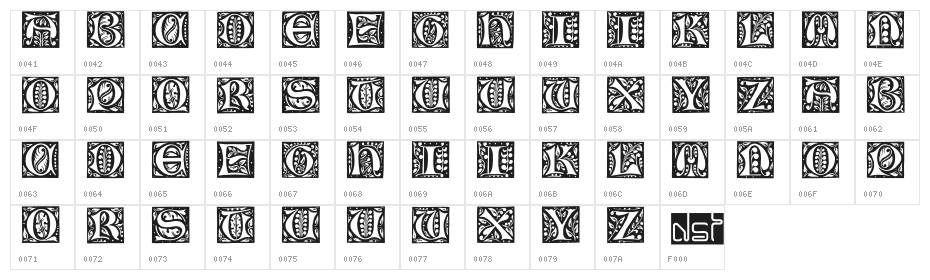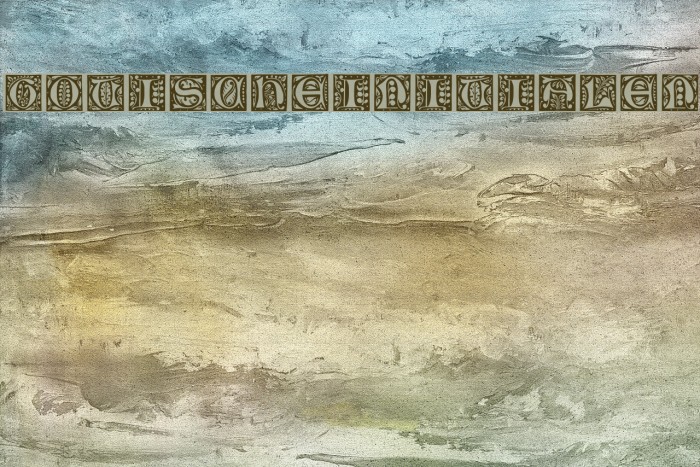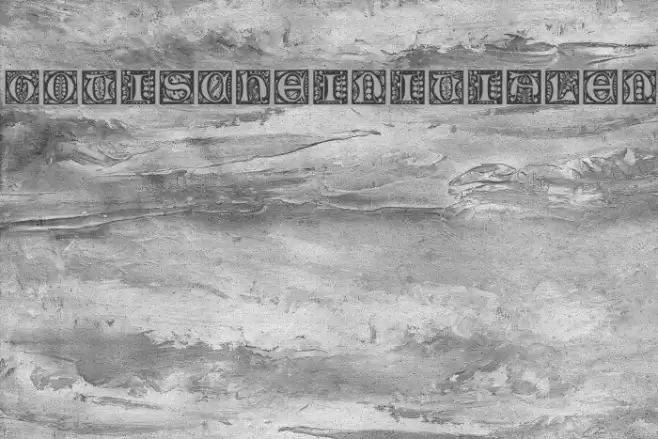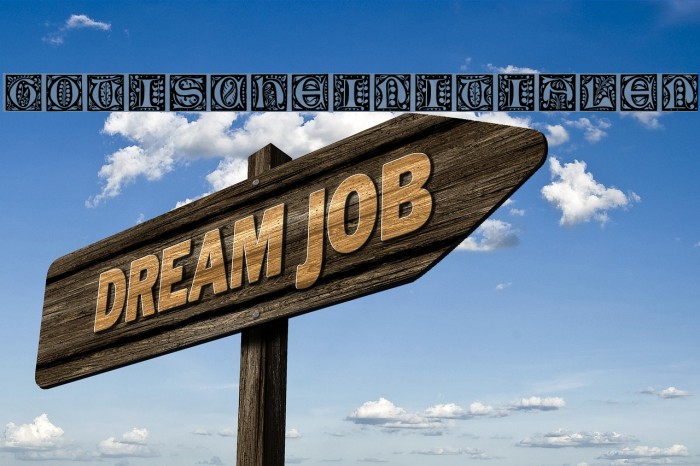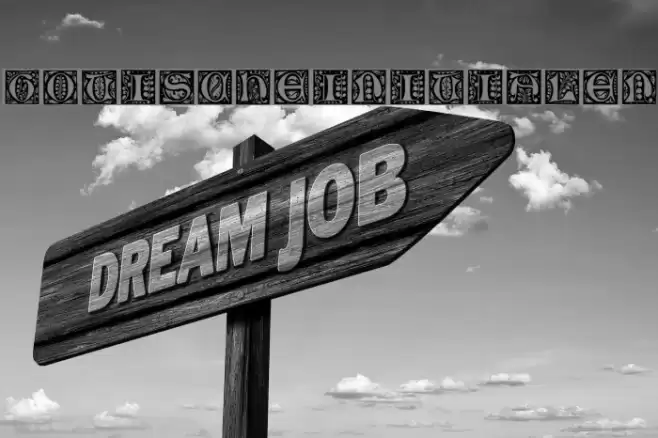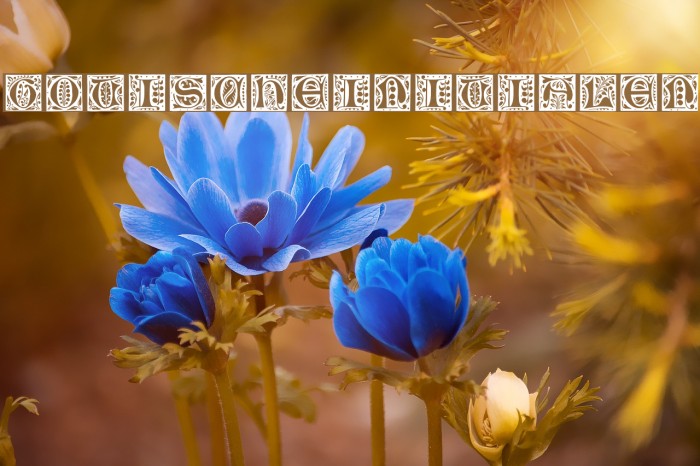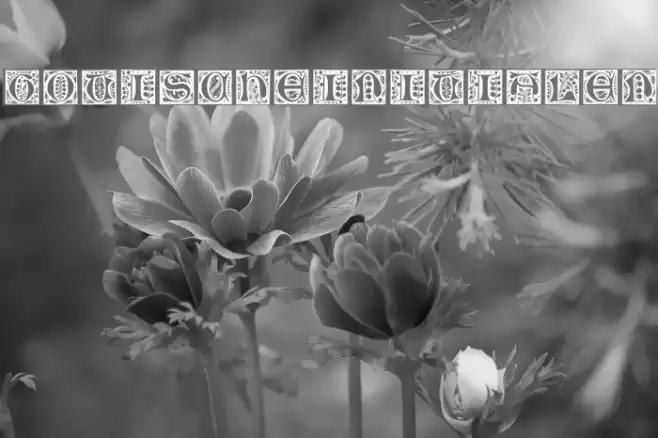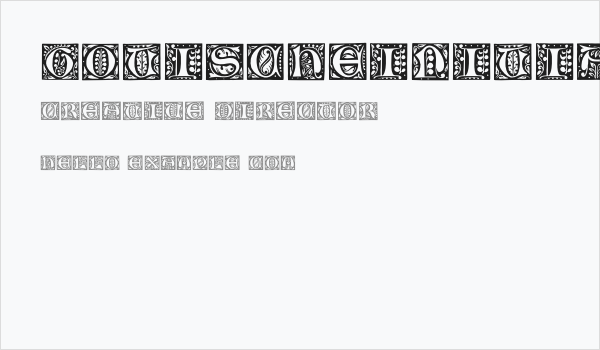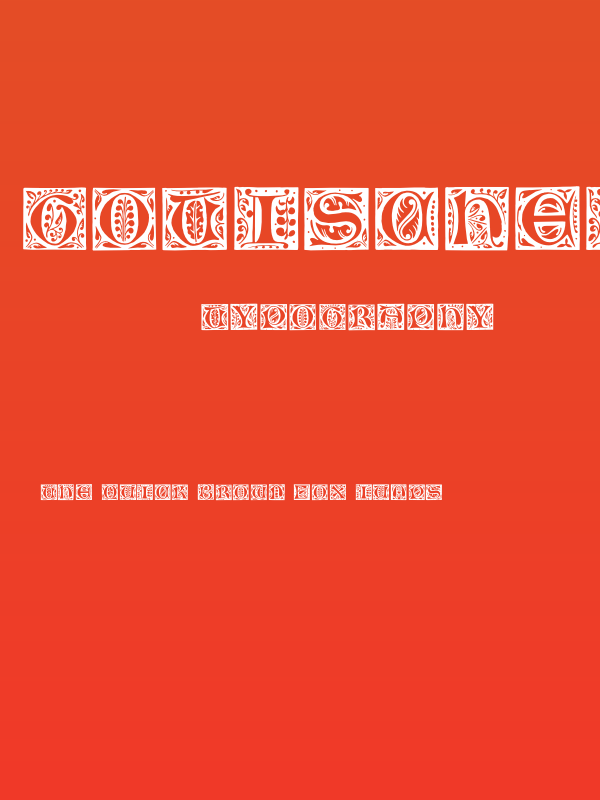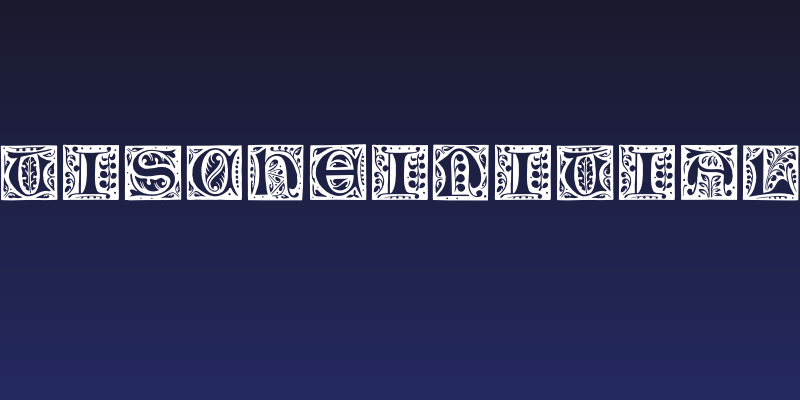
GotischeInitialen Font
GotischeInitialen Description
This font features ornate, decorative initials with intricate patterns and flourishes reminiscent of Gothic art. Each letter is encased in a square, giving it a structured and formal appearance. The design includes elaborate detailing within each character, such as swirls, leaves, and other embellishments, creating a sense of historical elegance and sophistication. The bold and complex nature of the font makes it stand out, suitable for projects that require a touch of vintage or medieval charm.
Overall StyleVintage
Proposed ProjectsIdeal for use in medieval-themed designs, book covers, invitations, or any project that requires a historical or vintage aesthetic.